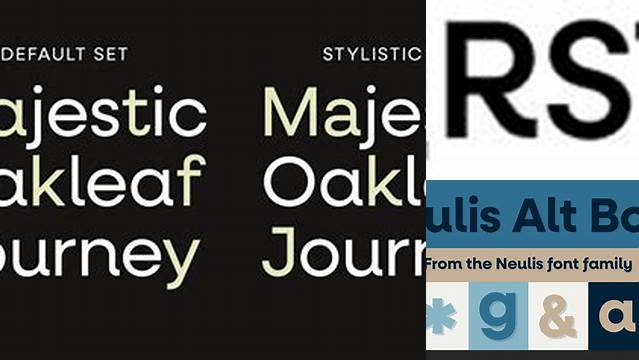
Hey everyone, are you on the hunt for a font that's not just visually appealing but also incredibly versatile? Look no further! We're diving deep into the world of the Neulis Alt Medium font, a fantastic option that's available free of charge. This guide will explore everything you need to know, from where to grab it to how you can use it to elevate your designs. Whether you're a seasoned designer or just starting out, understanding the nuances of font choices like Neulis Alt Medium can significantly impact your projects. Let's get started, shall we?
What is Neulis Alt Medium? Unveiling the Font's Characteristics
So, what exactly makes Neulis Alt Medium font stand out from the crowd? Well, first off, it's part of the Neulis family, known for its clean and modern aesthetic. The 'Medium' in its name refers to the weight of the font, offering a balanced look that isn't too heavy or too light. This makes it an excellent choice for various uses, from headings to body text. The 'Alt' likely indicates an alternative style within the Neulis family, perhaps offering slight variations in letterforms that add a touch of uniqueness to your designs. If you're looking for something that is both readable and stylish, Neulis Alt Medium could be your new go-to. It's the kind of font that can make your text pop without overpowering the overall design. The best part? It's designed to be super versatile. Imagine using it for website headers, social media posts, or even printed materials like brochures. The font's clear and concise style is a great way to get your message across effectively.
Leveraging Neulis Alt Medium in Your Designs: Practical Applications and Tips
Now that you have the font, how do you use it? Neulis Alt Medium shines in a variety of applications. It’s perfect for website headers because it’s clean and easily readable at different sizes. It's also a great choice for body text, especially in digital documents or websites where clarity is key. Its modern style makes it suitable for a wide range of design projects. You can create eye-catching social media graphics and engaging marketing materials with this font. The simplicity of the font makes it a perfect choice for those looking for versatility. To get the most out of Neulis Alt Medium, consider a few design tips. First, play with different sizes and weights to find the perfect balance for your design. Make sure your text is easy to read, regardless of the background. Use the font in headings to draw attention to important information, and try variations to highlight key content. You can also experiment with color combinations to create a unique visual experience. If you’re using it for a website, think about how it interacts with your other design elements. For instance, if you have a lot of visual clutter, the clean lines of Neulis Alt Medium can provide a sense of order. On the other hand, if you're going for a more minimalist design, the font can be a cornerstone of your aesthetic. Keep in mind that the best design is often the one that communicates your message clearly and effectively. A good font choice will support that goal.
When using Neulis Alt Medium, always keep the context of your design in mind. This font can work for many things, but it may not be the right choice for every project. For instance, while it's fantastic for modern websites or social media graphics, it might not be the best fit for a project that requires a more traditional or ornate style. Also, consider pairing it with other fonts. This can help to create visual interest and hierarchy in your design. Don't be afraid to experiment – that’s how you'll find the best ways to use this font for your projects! Consider combining Neulis Alt Medium with a contrasting font for headings and subheadings. This helps to establish visual hierarchy. You can also try using different colors for added emphasis. To get started, start by using the font in different contexts and see how it feels. This will enable you to get a sense of how it performs in different scenarios. Then, adjust as needed.
Neulis Alt Medium vs. Similar Fonts: Exploring Alternatives
While Neulis Alt Medium is awesome, it’s always good to know what else is out there. If you're looking for something similar, you might want to explore other fonts from the Neulis family or similar sans-serif fonts that offer a clean, modern aesthetic. Some alternatives to consider include fonts such as Open Sans, Lato, Montserrat, and Roboto. These are all popular choices known for their excellent readability and versatility. Each of these fonts brings its unique character to the table. Depending on your project needs, you might find that one of these alternatives better suits your design goals. Some fonts are better suited for certain types of projects than others. For example, Open Sans is often used for body text due to its excellent readability, while Montserrat is great for headings. Be sure to check out the style and character of the font, and how it is used.
When considering alternatives, think about the specific characteristics you're looking for. Do you need a font with a high x-height for better readability, or something with a more geometric design? Considering things like readability, character, and licensing terms can help you find a good fit. Check out the font's weight, style, and overall appearance. The right font will elevate your work. All these fonts are usually available for free download, making them accessible for a variety of design projects. They provide a range of options for any design. Remember, the best font is the one that works best for your project. Don't be afraid to experiment and compare different fonts to find the perfect match.
Conclusion: Embrace the Versatility of Neulis Alt Medium!
So there you have it, folks! Neulis Alt Medium is a fantastic font choice that is stylish, versatile, and free! With its clean lines and excellent readability, it’s perfect for a wide range of design projects. Remember to download from a reputable source, read the license carefully, and have fun experimenting with it! Whether you're creating a website, designing social media graphics, or working on printed materials, Neulis Alt Medium can help you achieve a polished and professional look. Go ahead, download it, and let your creativity run wild! I hope you found this guide helpful. Happy designing, everyone!